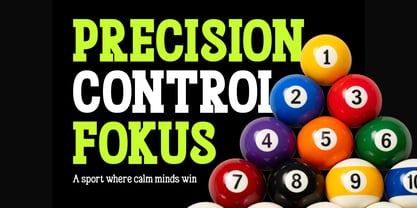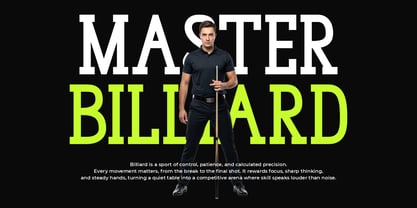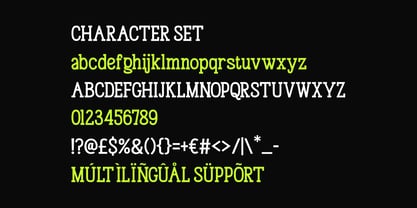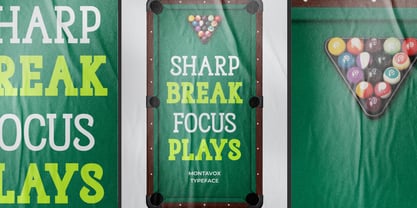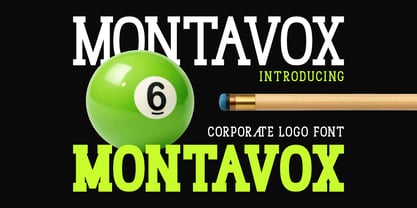
Montavox
by Shanaf
The Montavox Font Family was designed by Yesie Erma Yunita and published by Shanaf. Montavox contains 2 styles and family package options. More about this family
Montavox Corporate Logo Font is a bold slab serif typeface built for strong visual identity. The letterforms feature thick vertical strokes and solid rectangular serifs. Each character appears tall, structured, and balanced with clear geometric proportions. The strokes maintain consistent weight, creating a firm and stable appearance. The slab terminals look broad and squared, reinforcing a confident typographic presence. Wide spacing and upright construction help maintain clarity in large display sizes. Montavox Corporate Logo Font blends modern corporate style with classic slab serif structure. The design communicates strength, focus, and discipline. It works perfectly for corporate logos, sports branding, and competitive event graphics. This display slab typeface delivers a bold and authoritative tone for branding projects. The strong geometry creates a professional and structured visual rhythm. Designers can use it for logos, poster headlines, promotional advertising, and business branding. It fits perfectly with sports related themes, billiard clubs, competitive leagues, and entertainment venues. The stable letter construction ensures excellent readability for titles and headlines. Montavox Corporate Logo Font also works well for magazine covers, book titles, packaging labels, and poster layouts. Businesses such as billiard halls, sports bars, gaming venues, and corporate event organizers can build memorable brand identities using this typeface.
Designers: Yesie Erma Yunita
Foundry: Shanaf